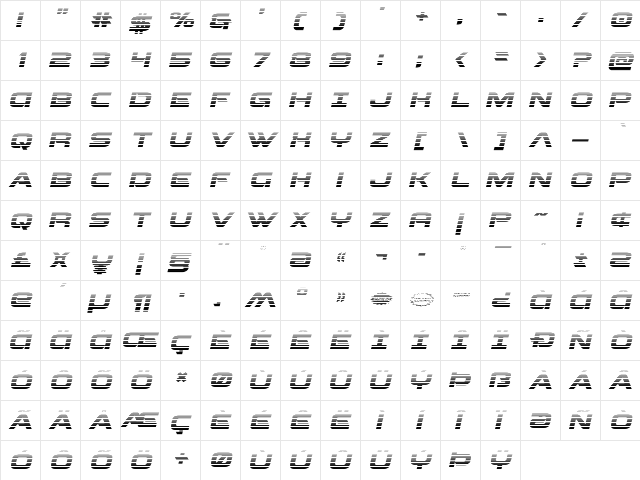
Beam Weapon Gradient Italic Italic
Design Context for Beam Weapon Gradient Italic Typeface
Beam Weapon Gradient Italic is a composed and adaptable typeface that performs quietly and consistently across a wide range of design contexts. The dynamic lean of this cut emphasises speed and emphasis in any layout.
Pro Tip: Use Beam Weapon Gradient Italic for emphasis, pull quotes, and subheadings where its slanted energy can add rhythm to the layout.